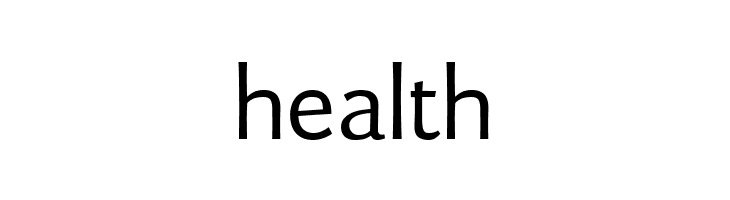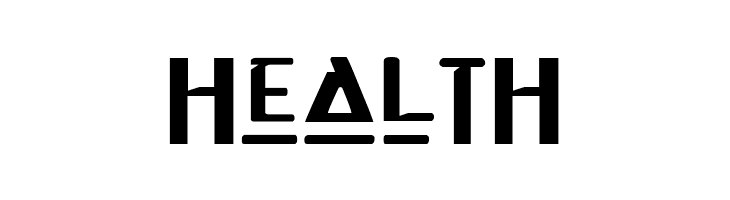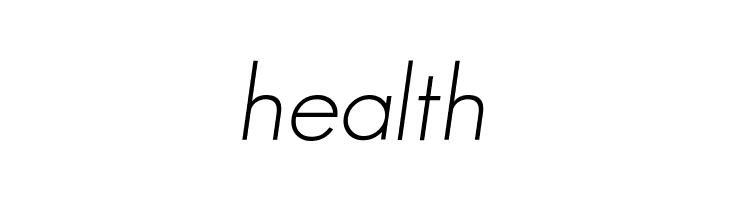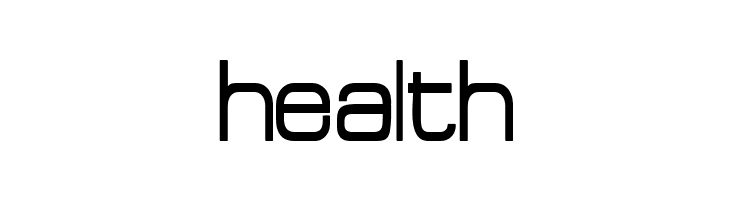
A bold, futuristic font with geometric shapes and sharp angles.
A sleek, modern italic font with geometric precision and clean lines.
A bold, futuristic font with angular, geometric letterforms.
A bold, futuristic font with geometric and stencil-like characteristics.
A clean, geometric sans-serif font with a minimalist design.
A sleek, modern, and oblique sans-serif font with light weight and medium contrast.